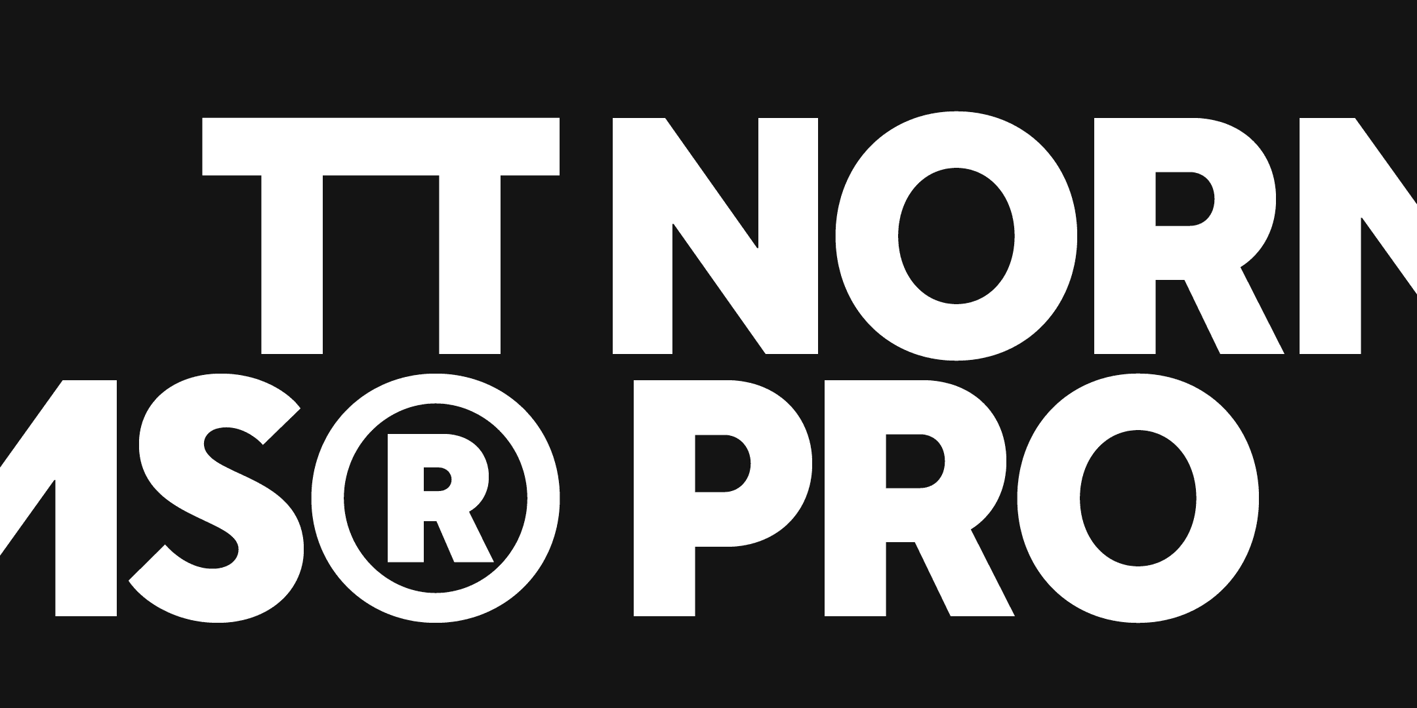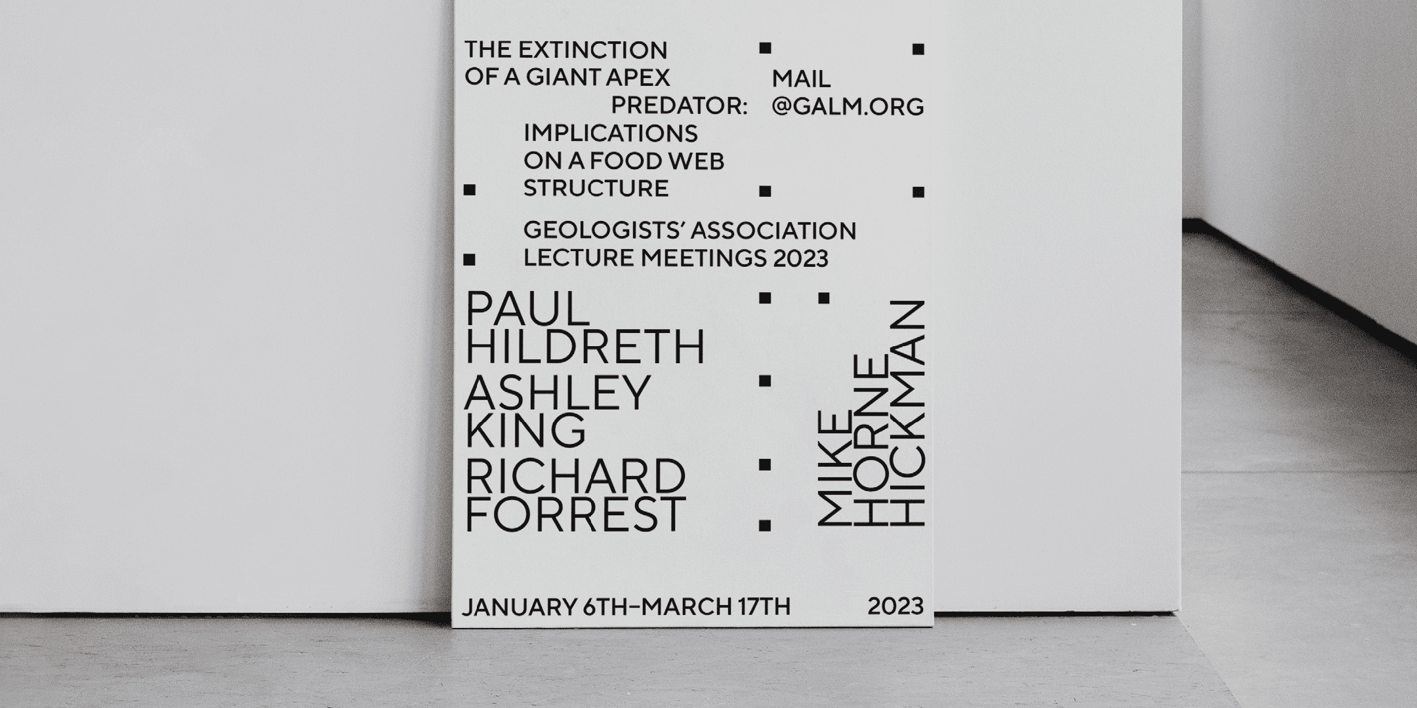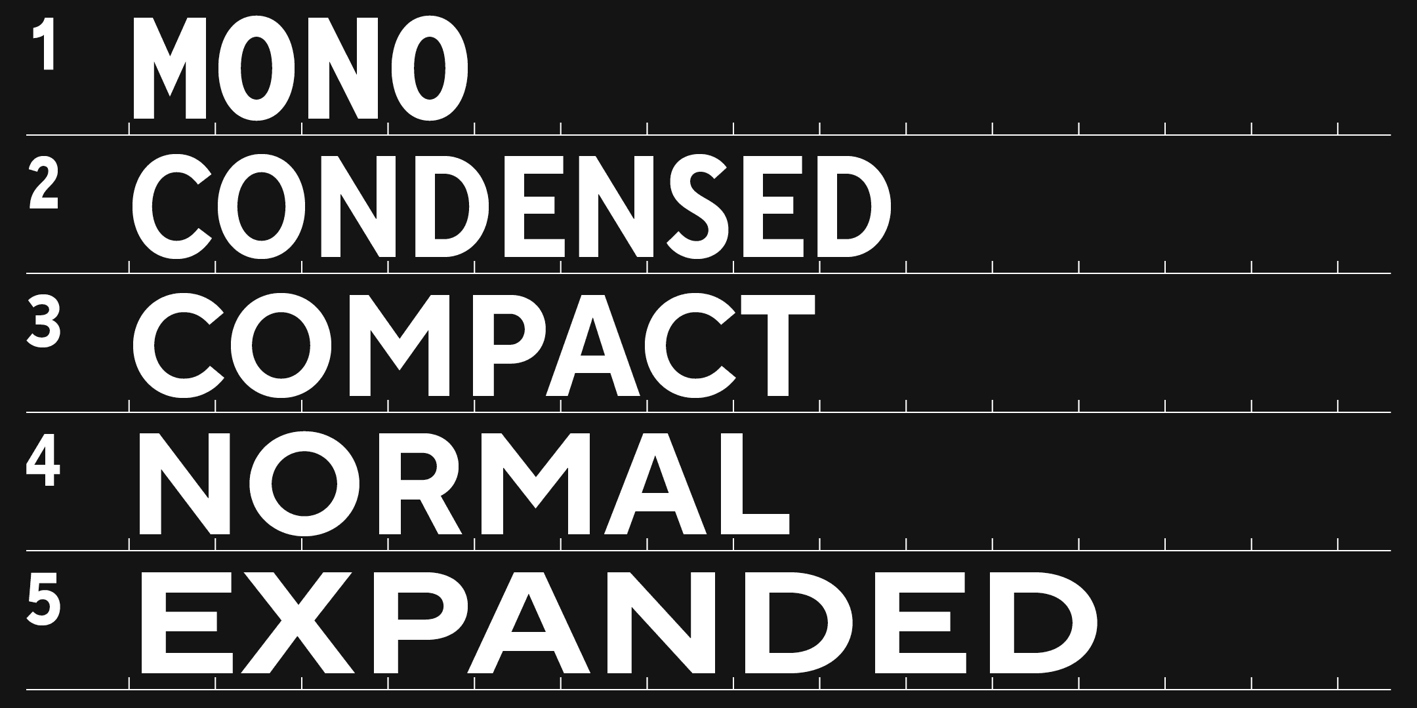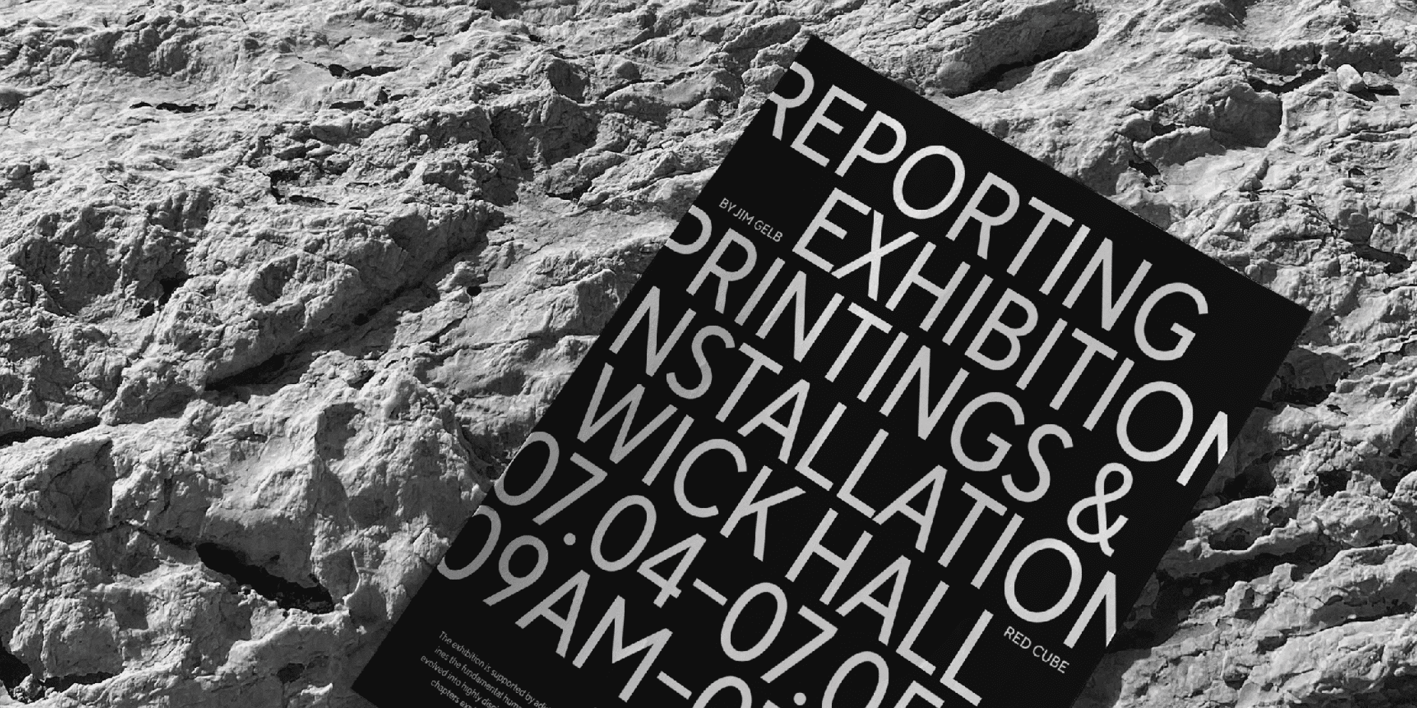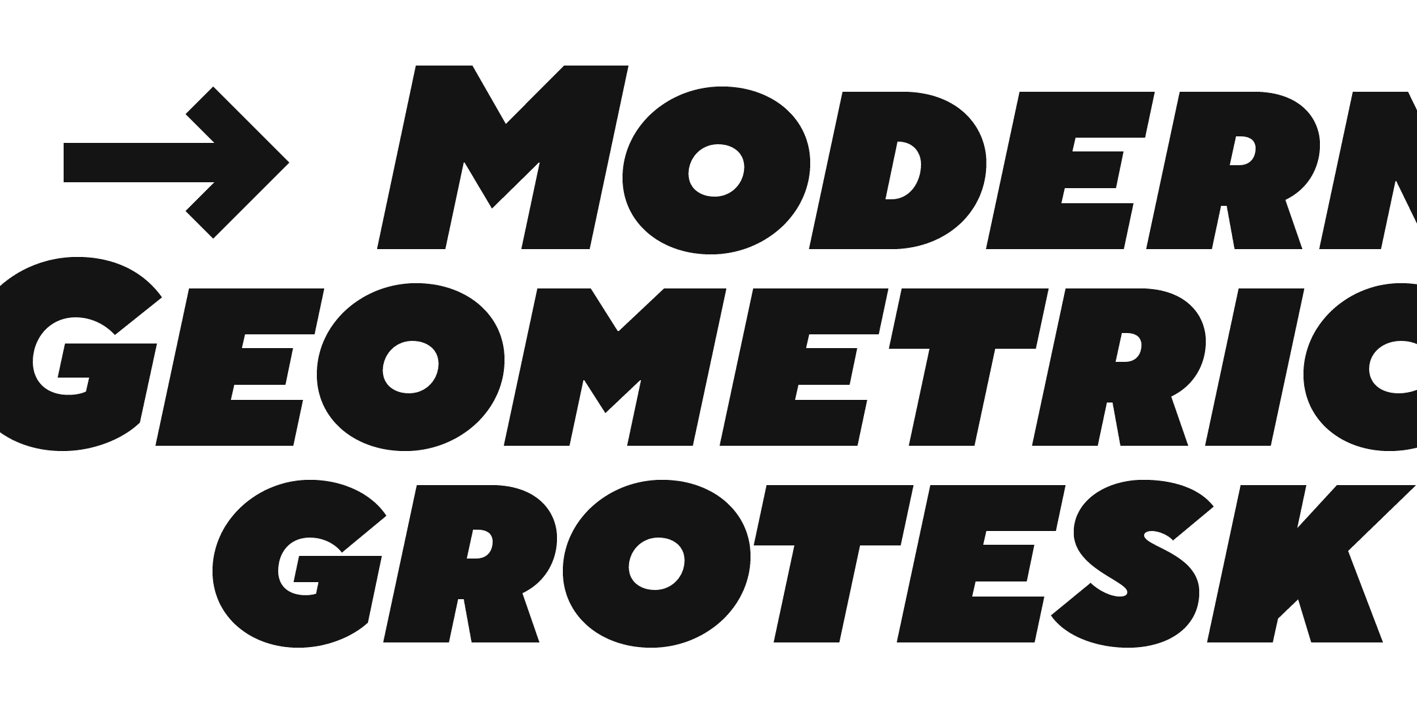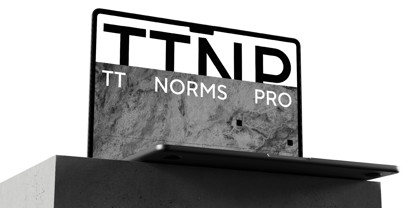
TT Norms Pro Font
TT Norms Pro Font excels in professional corporate branding, modern tech company websites, international business communications, software interface design, enterprise presentations, financial institution materials, consulting firm proposals, global brand identity systems, professional service marketing, and contemporary digital platforms. This versatile typeface brings systematic clarity and professional excellence to any business-focused design project.
TT Norms Pro Font is exciting because it represents the gold standard of contemporary sans-serif design, featuring perfectly balanced letterforms that establish professional credibility while maintaining exceptional readability across all media platforms. Its systematic character embodies the precision and reliability that modern businesses demand from their visual communications.
The TT Norms Pro Font family includes comprehensive weight range from Thin to Black with matching italics, plus condensed and extended variants, extensive language support, and advanced OpenType features that enhance the professional aesthetic, providing corporate designers with complete typographic solutions for complex international business applications.
Corporate designers appreciate TT Norms Pro Font for its exceptional versatility in professional communications and its ability to maintain brand consistency across multiple platforms and international markets. The font's neutral excellence and systematic construction ensure optimal performance in demanding business environments where clarity, professionalism, and cross-cultural communication are essential.
The technical excellence of TT Norms Pro Font includes comprehensive character sets, advanced typographic features, and meticulous spacing optimization that ensures professional results in corporate communications, making it particularly effective for multinational organizations, professional services, and technology companies that require reliable typography for global business operations.
Whether used for corporate annual reports, professional websites, or international marketing campaigns, TT Norms Pro Font delivers uncompromising professional quality and systematic excellence. Its business appeal and global reliability make it an indispensable choice for organizations that demand the highest standards in corporate communications and professional visual identity systems.